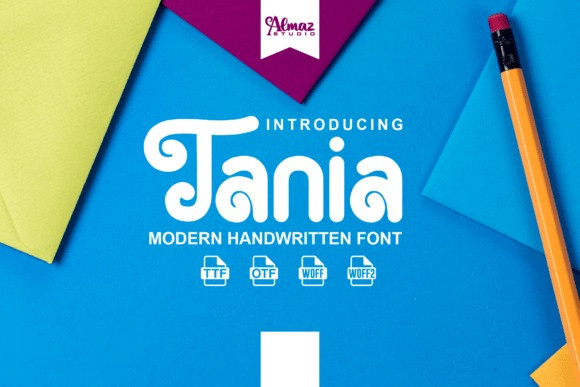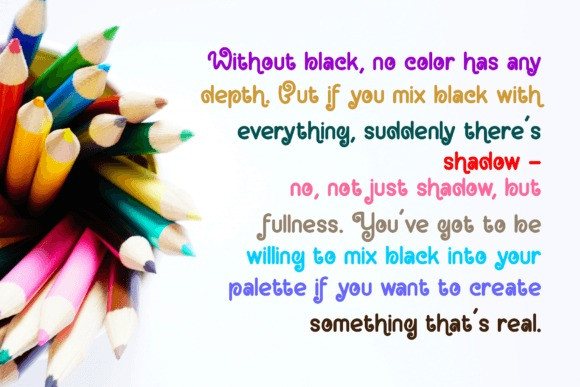
Tania Font
Tania is a fun handwriting font with awesome handwritten brush style, exclusively created by Almaz Studio™. It’s a professional version which was complicated hand-made and computer-generated graphics, and various revisions. Tania clean lines and sharp edges make it a perfect, after installing on the computer you can create posters, web graphics, game graphics, t-shirts, videos, signs, logos and more. This font has a cute feel so it will suit many industries, such as architect, bakery, boutique, cooking, craft, drink brand, florist, publishing, and more!. Plus, the different weights make it a stellar option for branding and web use looks really beautiful with condensed spacing as well.